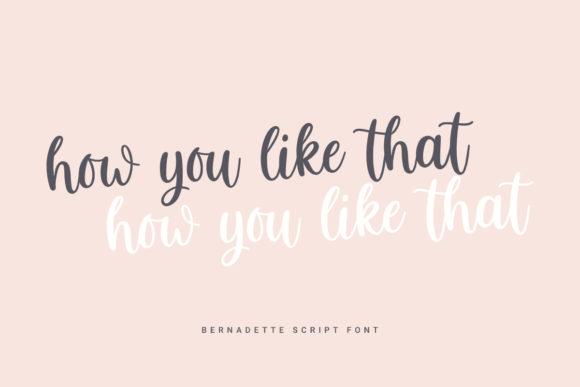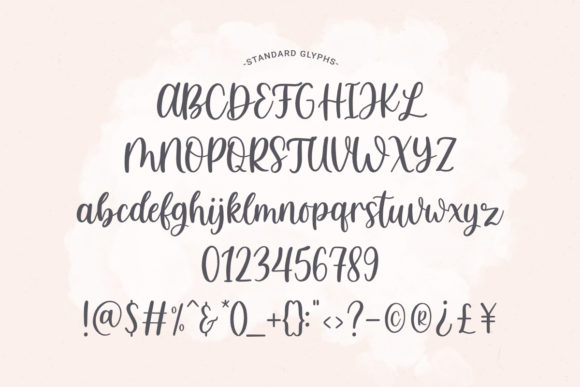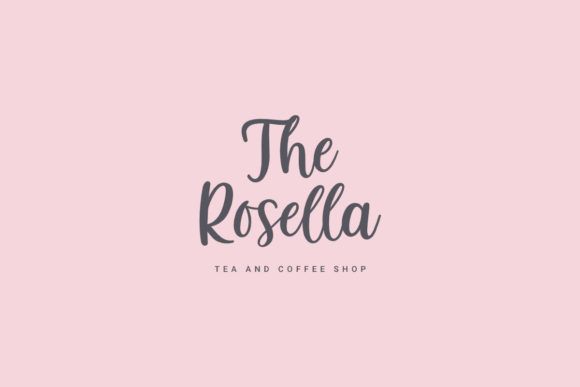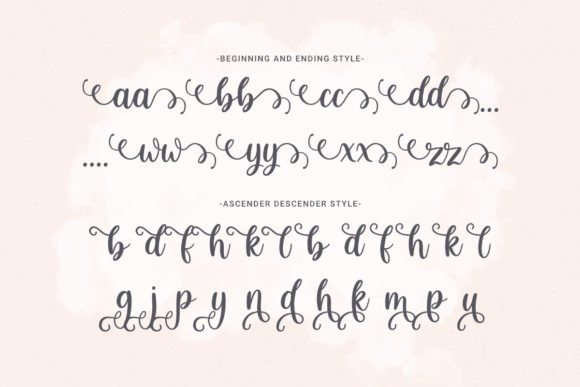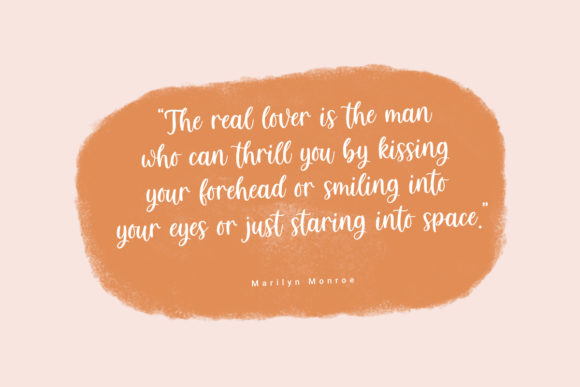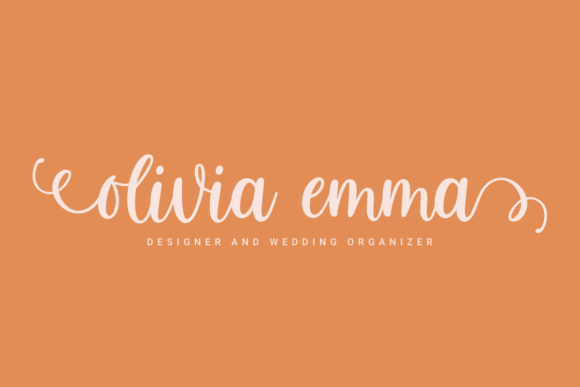
The Quest for the Perfect Font: Discovering Bernadette
I’ll never forget the time I was working on a project for a client who wanted a font that was both elegant and playful. I spent hours scouring the internet for the perfect match, but nothing seemed quite right. That was until I stumbled upon Bernadette, a beautiful handwritten font that stole my heart. In this article, I’ll share my experience with Bernadette, and explore its features, uses, and alternatives.
First Impressions: What I Love About Bernadette
Bernadette is a charming font that has won me over with its unique personality. Here are some things I love about it:
- ✨ Cute and elegant: Bernadette strikes the perfect balance between playfulness and sophistication.
- ✅ PUA encoded: This means that accessing glyphs and swashes is a breeze, making it easy to customize your designs.
- 💫 Handwritten feel: Bernadette has a lovely, organic feel that adds a touch of warmth to any design.
While Bernadette is an amazing font, there are a few things to keep in mind:
- 🤔 Limited use cases: While Bernadette is versatile, it’s best suited for designs that require a personal touch, such as invitations, branding, or packaging.
- ⚠️ Not suitable for body text: Due to its elegant, cursive nature, Bernadette is not ideal for long blocks of text.
The Story Behind Bernadette
Bernadette was designed with the intention of creating a font that was both elegant and approachable. Inspired by classic handwritten scripts, Bernadette’s creator aimed to craft a font that would add a touch of warmth and personality to any design.
| Font Name | Bernadette Font |
| Author | jimtypestudio |
| What is Bernadette’s personality? | Bernadette is a cute and elegant handwritten font, perfect for designs that require a charming appearance. |
| Is Bernadette suitable for body text? | No, Bernadette is best used for headings, titles, and short paragraphs due to its elegant, cursive nature. |
| Is Bernadette easy to read? | Yes, Bernadette is clear and legible, making it perfect for designs that require a personal touch. |